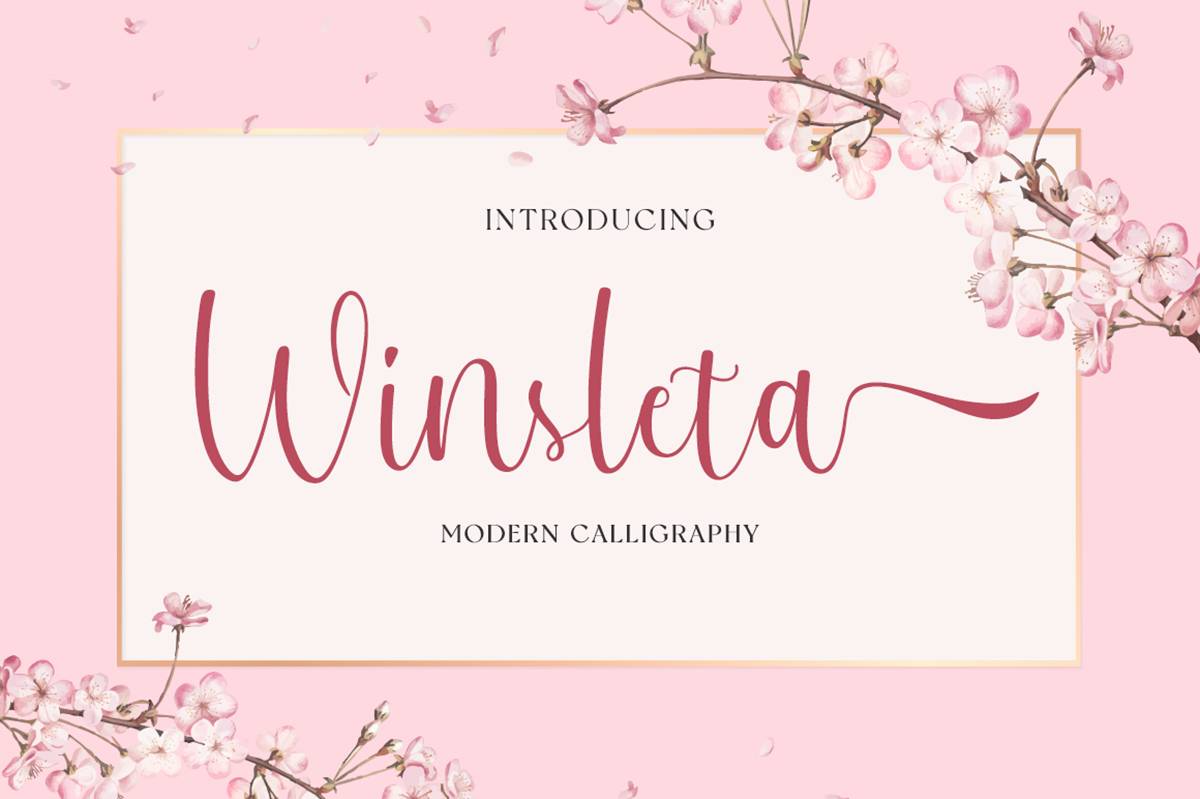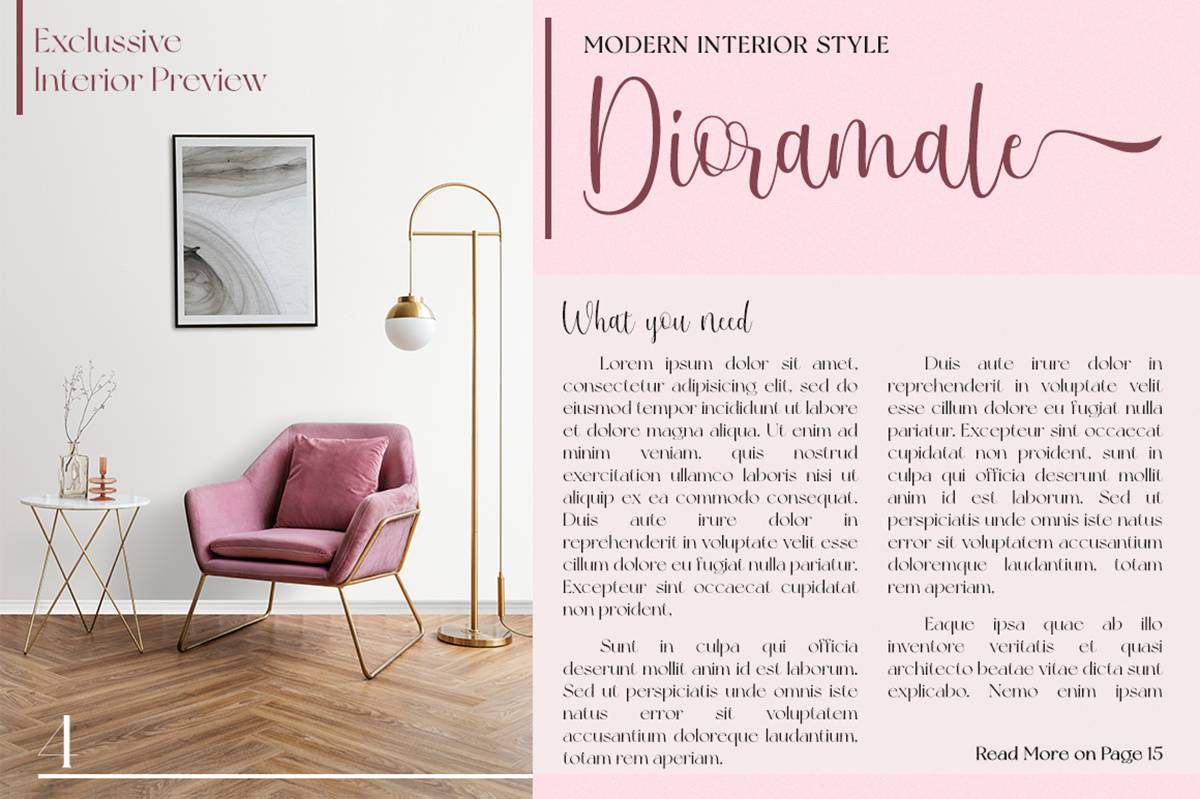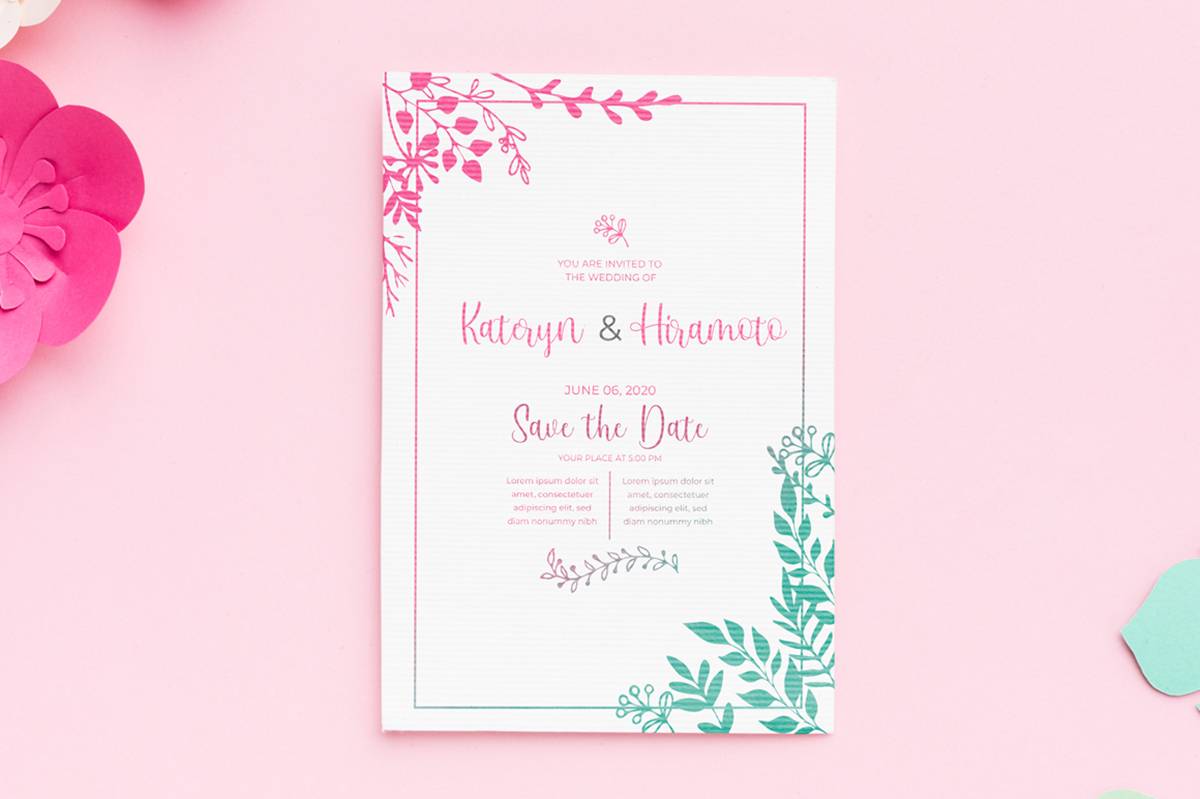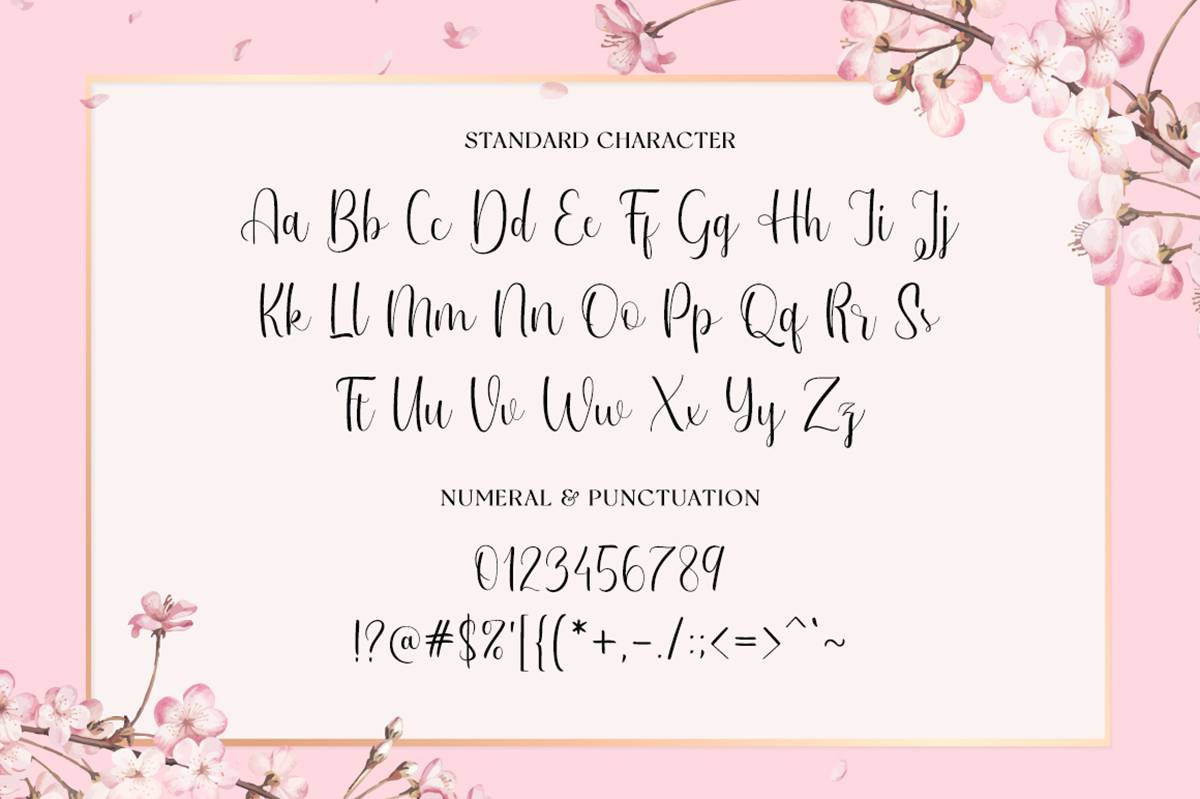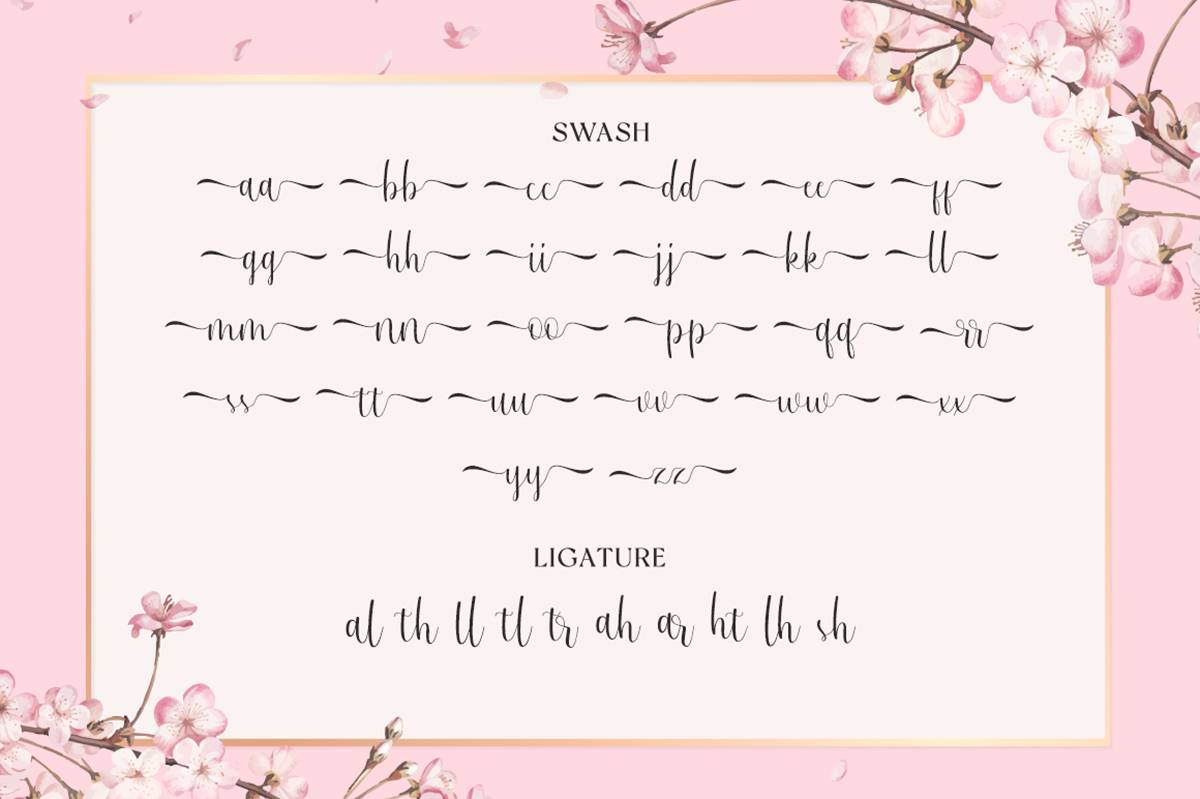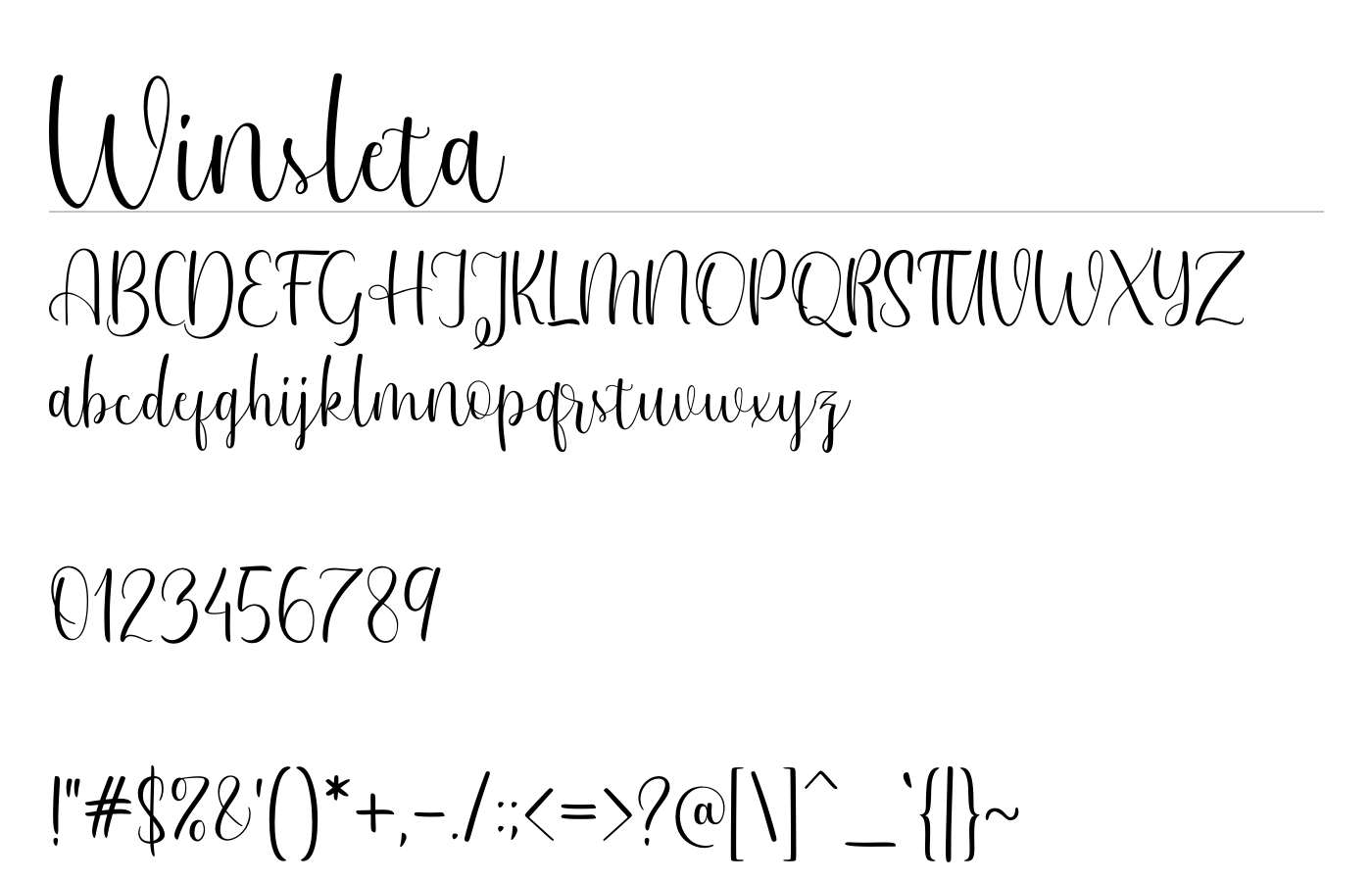
Winsleta Script is a delicate and elegant handwritten font featuring slender, graceful strokes with a light weight and tall x-height that create an airy, refined appearance. Its charming letterforms include playful swashes and loops that make it ideal for feminine, romantic, or artistic branding, invitations, and headlines where a soft, personal touch is desired. This font works beautifully in designs that aim to convey sophistication and warmth without sacrificing readability.
Winsleta Script Font
About Winsleta Script Font
| Font family | Winsleta Script Font |